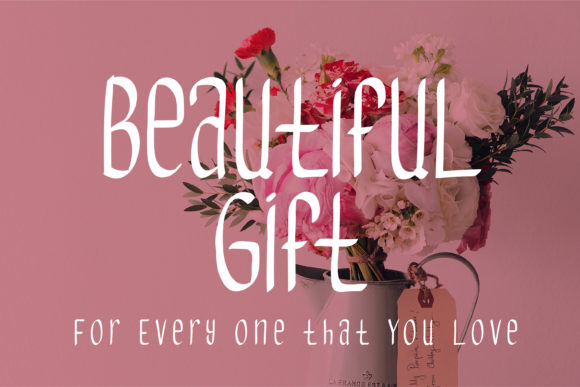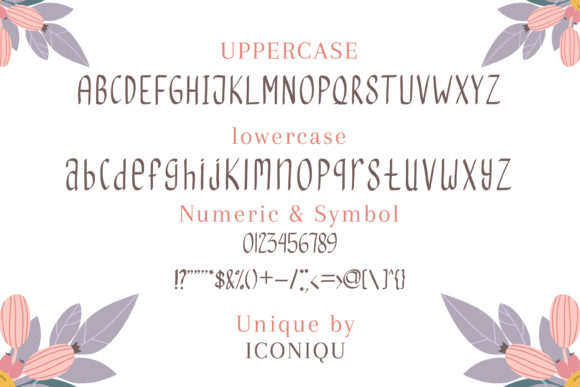
Flower Heart Font
db-ku.com - Script & Handwritten -- Flower Heart is a classic script font. This font’s versatility will appeal to a wide range of crafty ideas, from letterheads and titles, to stationery.